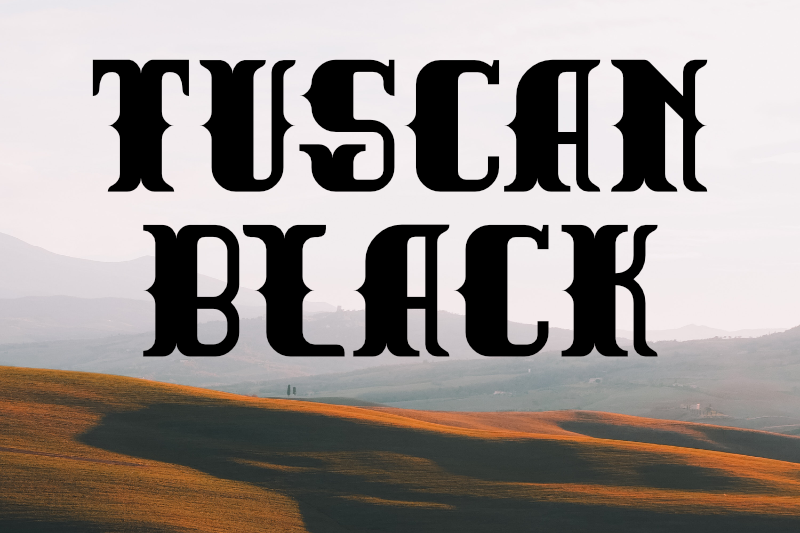
Preview and download Tuscan Black Font. Created by Thor Christopher Arisland in Fancy Western styles with Free for personal use license.
A heavy American style font with bifurcated serifs and spikes in the middle. This font started off as a geometrically constructed font with strict proportions until the design process took on a life of its own. The result is an experimental almost modular style mixed with 19th century inspired ornaments. This font is free for personal use. For commercial use, please purchase a licence from my store. The store is available at Creative Fabrica: http://www.creativefabrica.com/designer/thorchristopherarisland/ref/38065/ For more information about me and my other creative work, my website is available at: http://www.tcarisland.no |